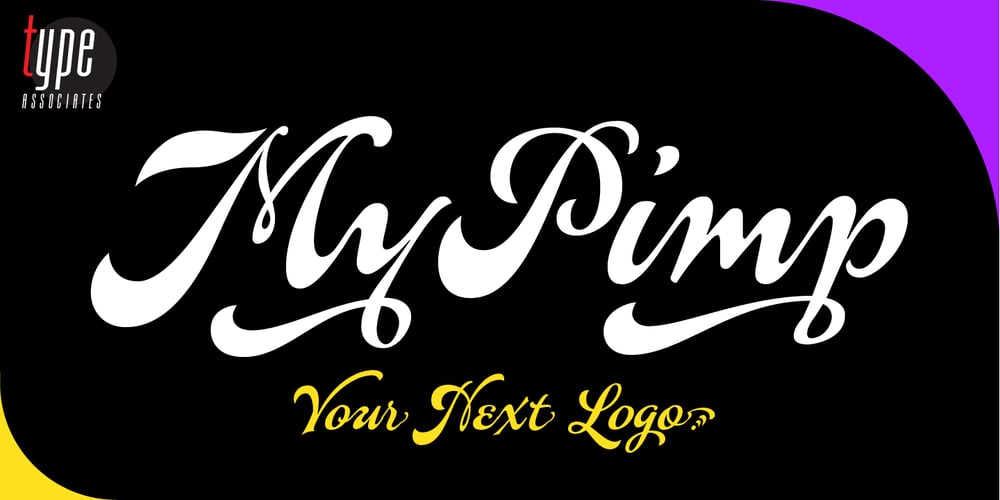
MyPimp
MyPimp font
MyPimp Font Family was designed by Russell Bean and published by Type Associates. MyPimp contains 1 styles and family package options. The concept of a bold connected script with a hand lettered feel has been on my bucket list for decades. I imagined a pretentious, ornate, swashy look, a variety of word-end embellishments, heaps of ligatures and underscores. It took a weekend workshop on Python Scripting at Type@Cooper in San Francisco reinforcing the smarts of Opentype to make it happen. Hand drawn on paper using broad pen strokes for reference, the design was the easy part. The real work was in the back-end and self-imposed rigorous testing.Download a comprehensive pdf User Guide at this link.